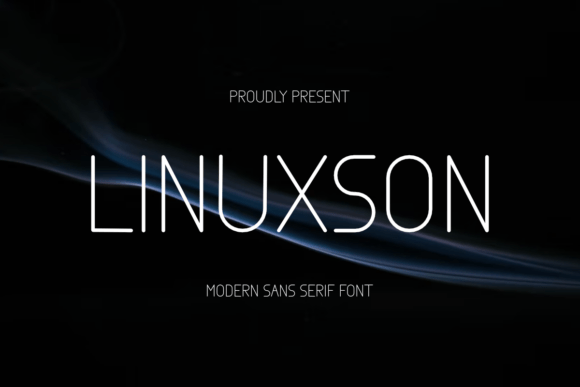
Linuxson Font: The Ultimate Choice for Modern, Minimalist, and Futuristic Designs
In the realm of typography, fonts play a pivotal role in conveying the essence and aesthetic of a design project. With the vast array of typefaces available, selecting the right font can be a daunting task, especially when aiming to make a bold, modern statement. This is where Linuxson Font comes into play, a contemporary sans serif font designed to infuse your projects with a sleek, minimalist, and futuristic appeal. In this comprehensive guide, we’ll explore the nuances of Linuxson, its design characteristics, and why it stands out as a premier choice for designers seeking to create impactful, cutting-edge designs.
Linuxson: A Modern Sans Serif Font
Linuxson is a modern sans serif font crafted with precision to deliver a clean, cutting-edge aesthetic. Its design is characterized by thin, elongated lines and open counters, which not only contribute to its minimalist appeal but also evoke a sense of innovation and technological sophistication. This font is perfect for designers who aim to create a strong visual presence in their work, whether it’s for striking logos, impactful tech branding, compelling headlines, sophisticated corporate identities, or dynamic social media graphics.
Key Design Characteristics of Linuxson
- Thin, Elongated Lines: The font’s thin lines contribute to its sleek and modern appearance, making it perfect for designs that require a minimalist approach without compromising on visual impact.
- Open Counters: The open counters in Linuxson enhance its readability, especially in digital platforms, while adding to its futuristic feel.
- Sans Serif: As a sans serif font, Linuxson offers a clean and streamlined look, free from the embellishments of serif fonts, making it ideal for modern and tech-oriented designs.
Ideal Use Cases for Linuxson Font
Linuxson’s versatility and distinctive design make it suitable for a wide range of applications. Here are some of the ideal use cases for this modern sans serif font:
- Striking Logos: Create memorable and impactful logos that embody a modern, tech-savvy brand identity.
- Impactful Tech Branding: Use Linuxson to develop a strong visual presence for tech brands, conveying innovation and sophistication.
- Compelling Headlines: Capture attention with compelling headlines for digital platforms, ensuring your message is not just seen but powerfully felt.
- Sophisticated Corporate Identities: Elevate corporate identities with a refined, modern, and high-tech sensibility that resonates with contemporary audiences.
- Dynamic Social Media Graphics: Craft dynamic social media graphics that stand out, reflecting a cutting-edge aesthetic and engaging your audience effectively.
Benefits of Using Linuxson Font
Choosing Linuxson for your design projects comes with numerous benefits, including:
- Enhanced Visual Presence: Linuxson helps in creating designs with a strong visual presence, making your projects stand out.
- Modern Aesthetic: Infuse your designs with a modern, minimalist, and futuristic appeal that aligns with current design trends.
- Versatility: The font’s versatility makes it suitable for various design applications, from digital content to print materials.
- Readability: Linuxson’s design ensures high readability, even at smaller sizes, making it perfect for digital platforms.
Tips for Effective Use of Linuxson Font
To maximize the impact of Linuxson in your design projects, consider the following tips:
- Pair with Complementary Fonts: When combining Linuxson with other fonts, choose typefaces that complement its minimalist and modern aesthetic.
- Adjust Line Spacing: Ensure adequate line spacing to maintain readability, especially in body text.
- Consider Contrast: Use color contrast effectively to make your text stand out, especially in digital designs.
- Experiment with Weights: If available, experiment with different weights of Linuxson to create visual hierarchy in your designs.
Linuxson Font emerges as a powerful tool for designers aiming to convey a modern, minimalist, and futuristic statement in their projects. Its sleek design, characterized by thin lines and open counters, not only ensures a strong visual presence but also evokes a sense of innovation and technological sophistication. Whether you’re working on logos, tech branding, headlines, corporate identities, or social media graphics, Linuxson offers the perfect blend of aesthetics and functionality. By incorporating Linuxson into your design repertoire, you’re equipped to create compelling, cutting-edge designs that resonate with contemporary audiences and leave a lasting impression.